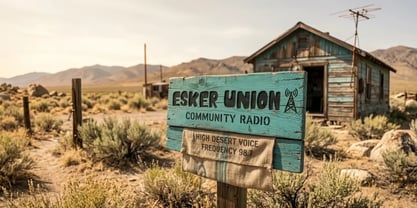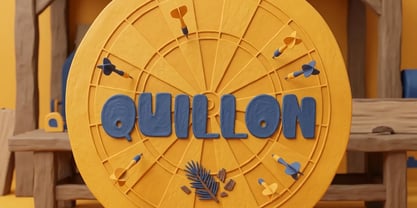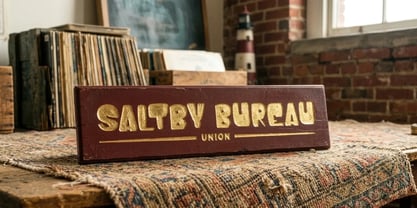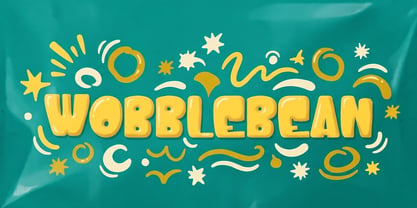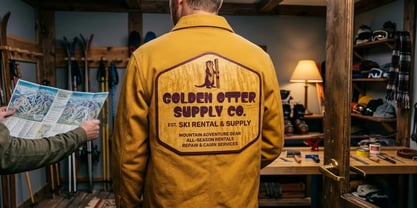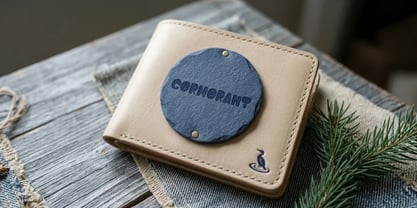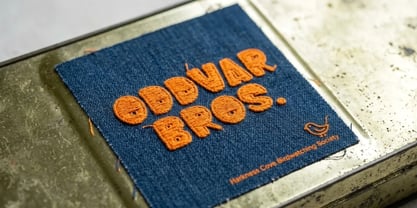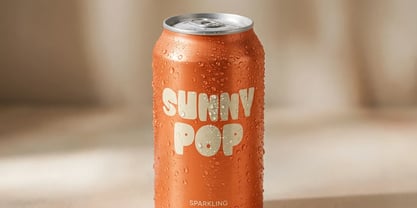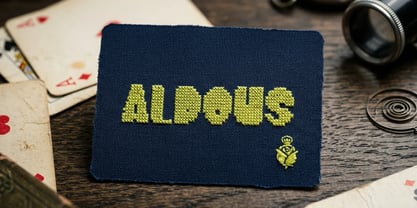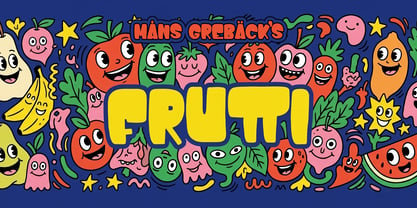
Frutti
Frutti is a chunky, rounded display typeface with a playful cartoon spirit.
Every letter is thick, bouncy and softly rounded, built from simple bold shapes that feel hand-drawn and friendly. It is loud and cheerful at big sizes, where the fat counters really show.
It suits a bubblegum wrapper, a kids' cereal box, or a sticker slapped on a skateboard.